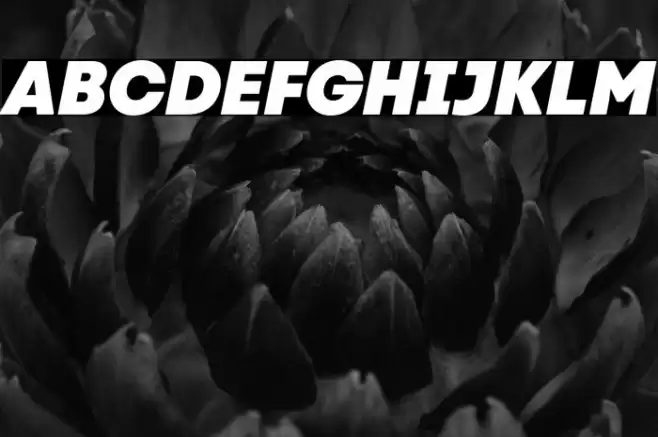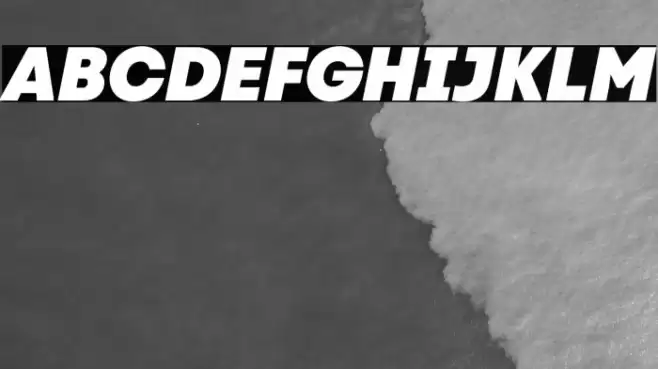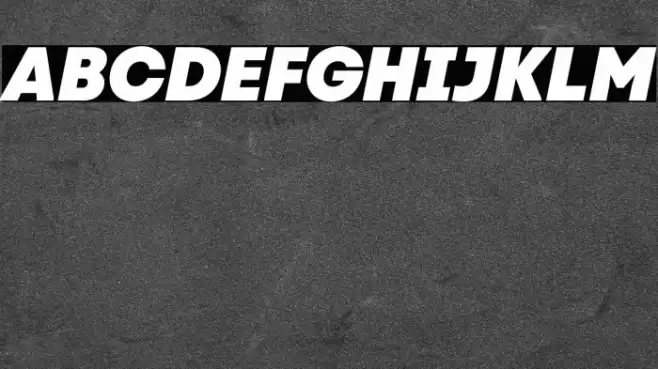
Code Next-Trial Heavy Italic Font
Code Next-Trial Heavy Italic Description
This font exhibits a bold and dynamic presence with its heavy weight and italic style. The characters are robust and convey a sense of strength and modernity. The uppercase and lowercase letters maintain a consistent slant, enhancing the italic effect. The numerals are equally bold, ensuring readability and impact. Special characters are designed with the same boldness, making them stand out. The overall design is clean and straightforward, suitable for making a strong visual statement.
A bold, heavy italic font with a modern and dynamic style from Uncategorized fonts.
- Font: Code Next-Trial Heavy Italic
- Proposed Projects: Ideal for branding, advertising, headlines, and any project requiring a strong, impactful typeface.
- Use Case: Headlines, Logos, Advertising